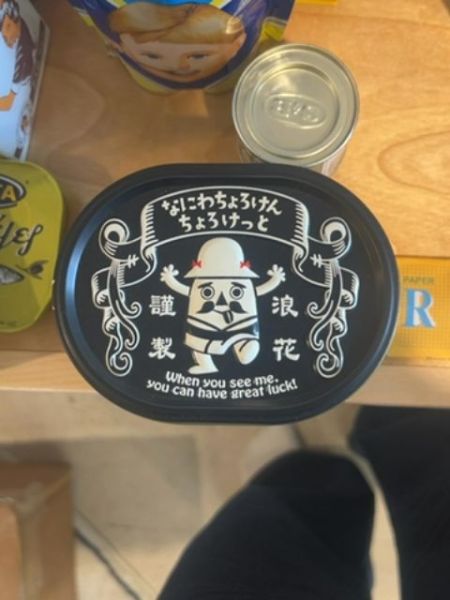
Naniwa Cheerful Chicken
This product is likely a canned food item associated with luck, possibly used as a souvenir or novelty gift.
The typography combines playful and ornamental styles. The English text uses a casual, script-like font, conveying friendliness, while the Japanese characters have a traditional and bold aesthetic, adding a cultural touch to the design.
The packaging is oval-shaped with a predominantly black and white color scheme. It features playful, illustrative graphics, including a character in a hat, with text in Japanese and English.
- The packaging uses black and white to create a stark, attention-grabbing contrast.
- The product is associated with good luck based on the text.
- It features whimsical and cartoonish graphics that add to its novelty appeal.